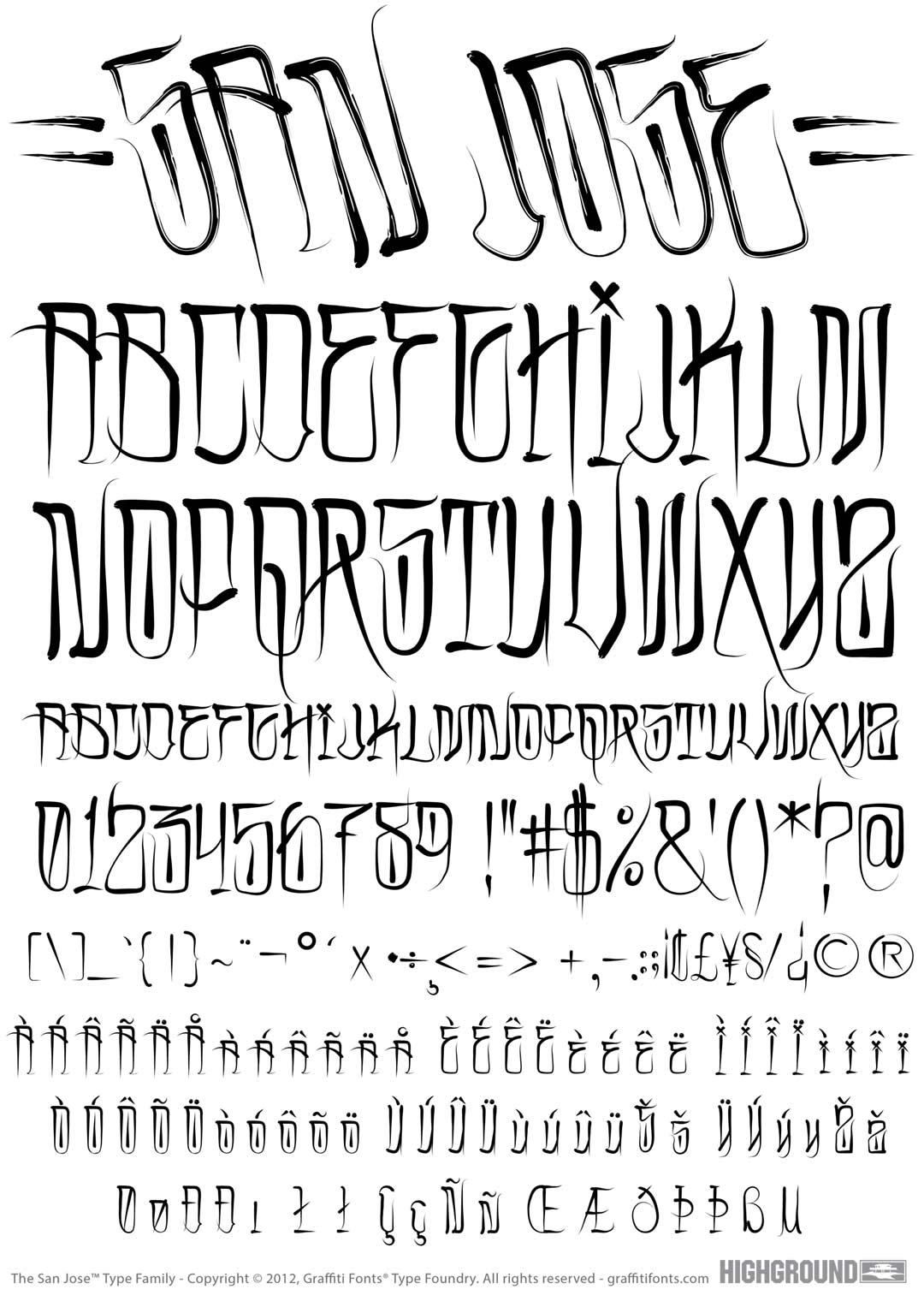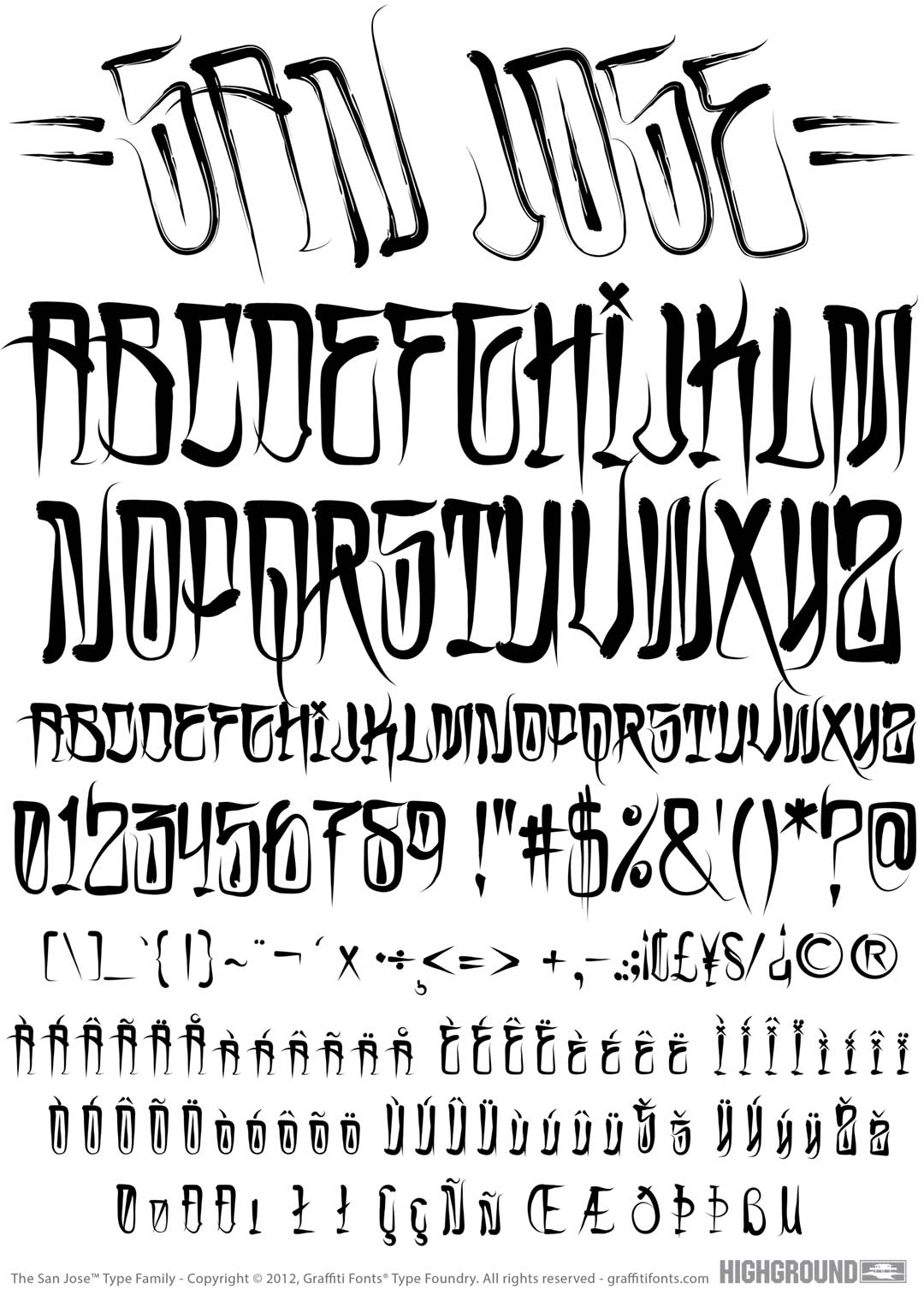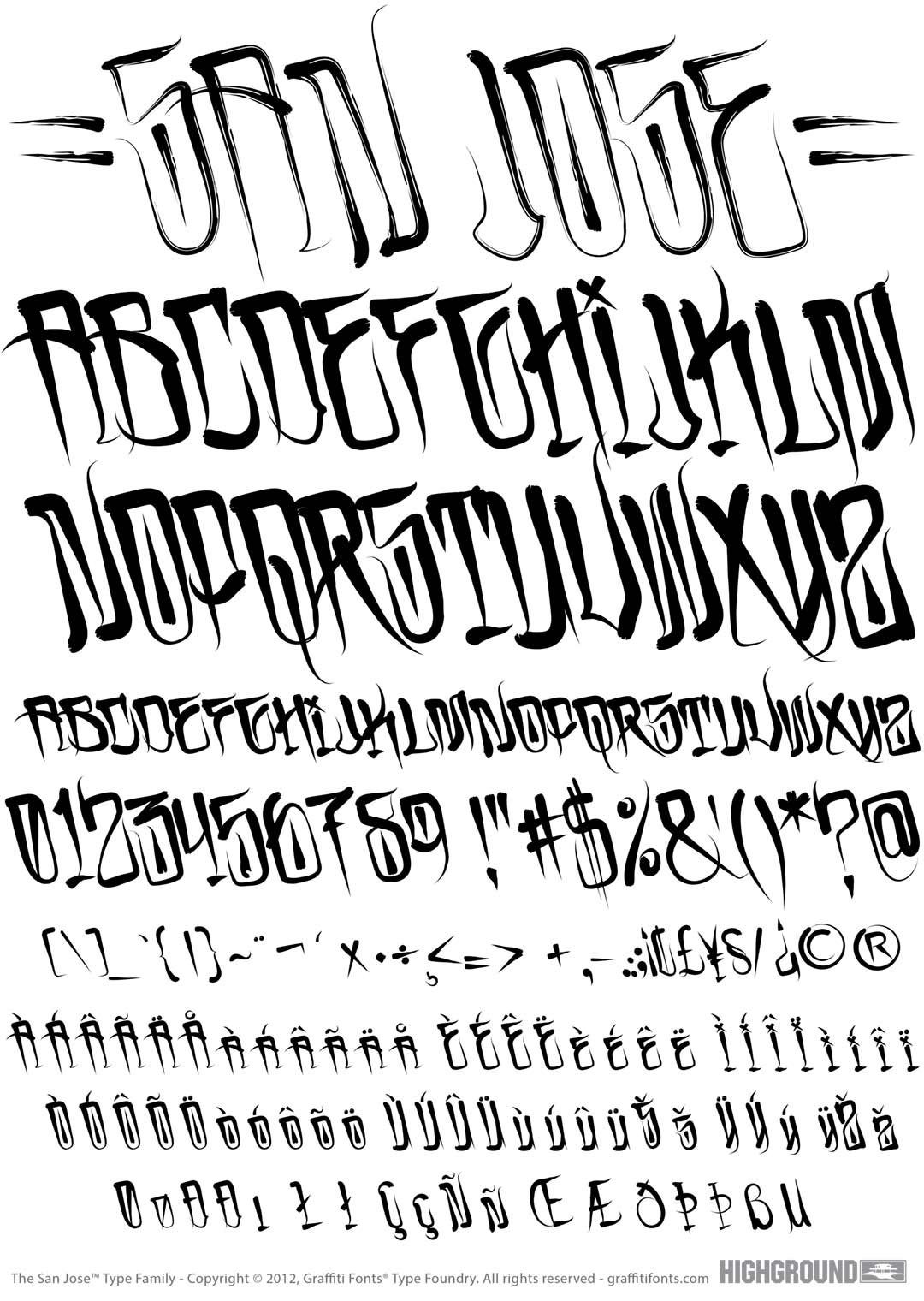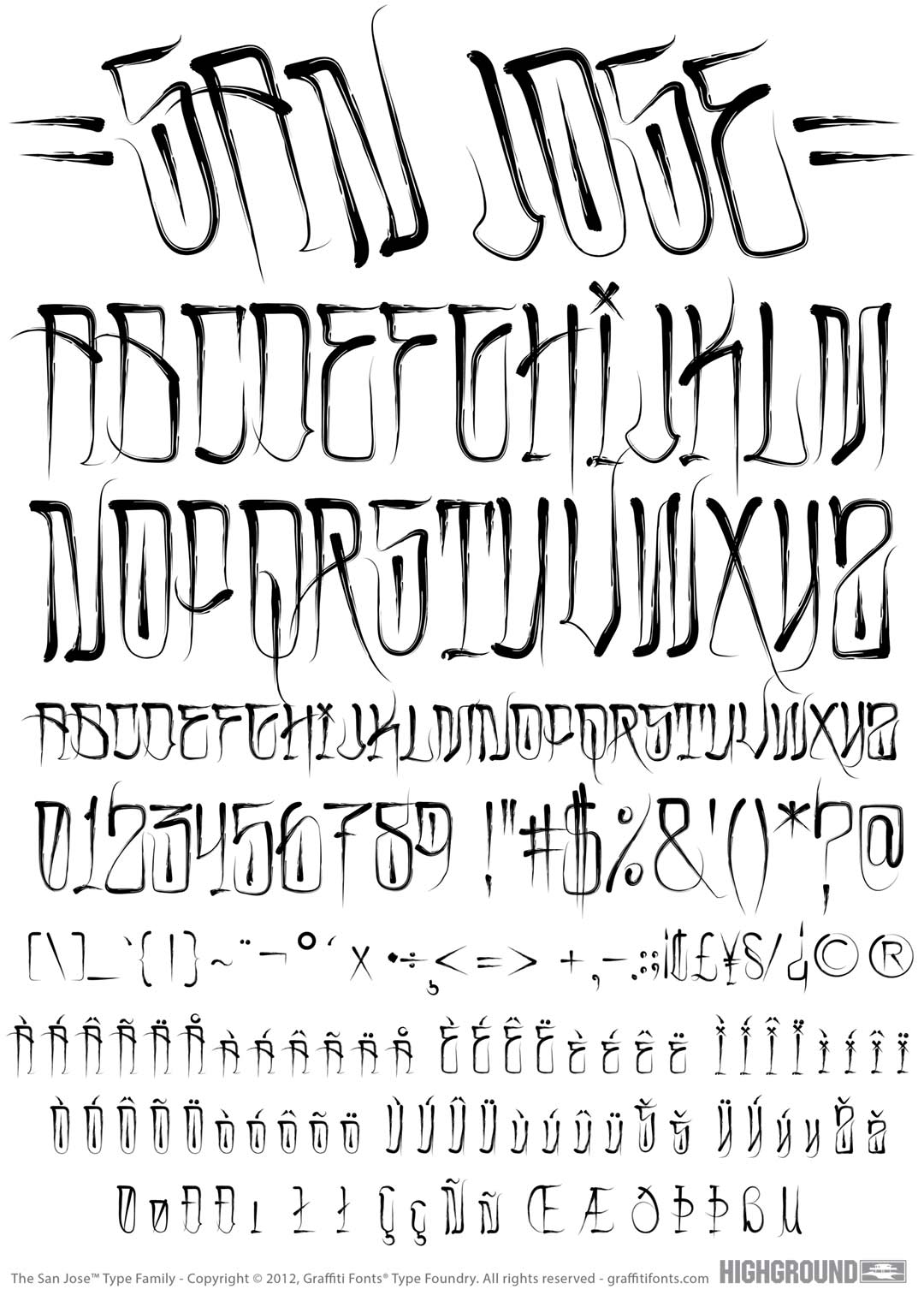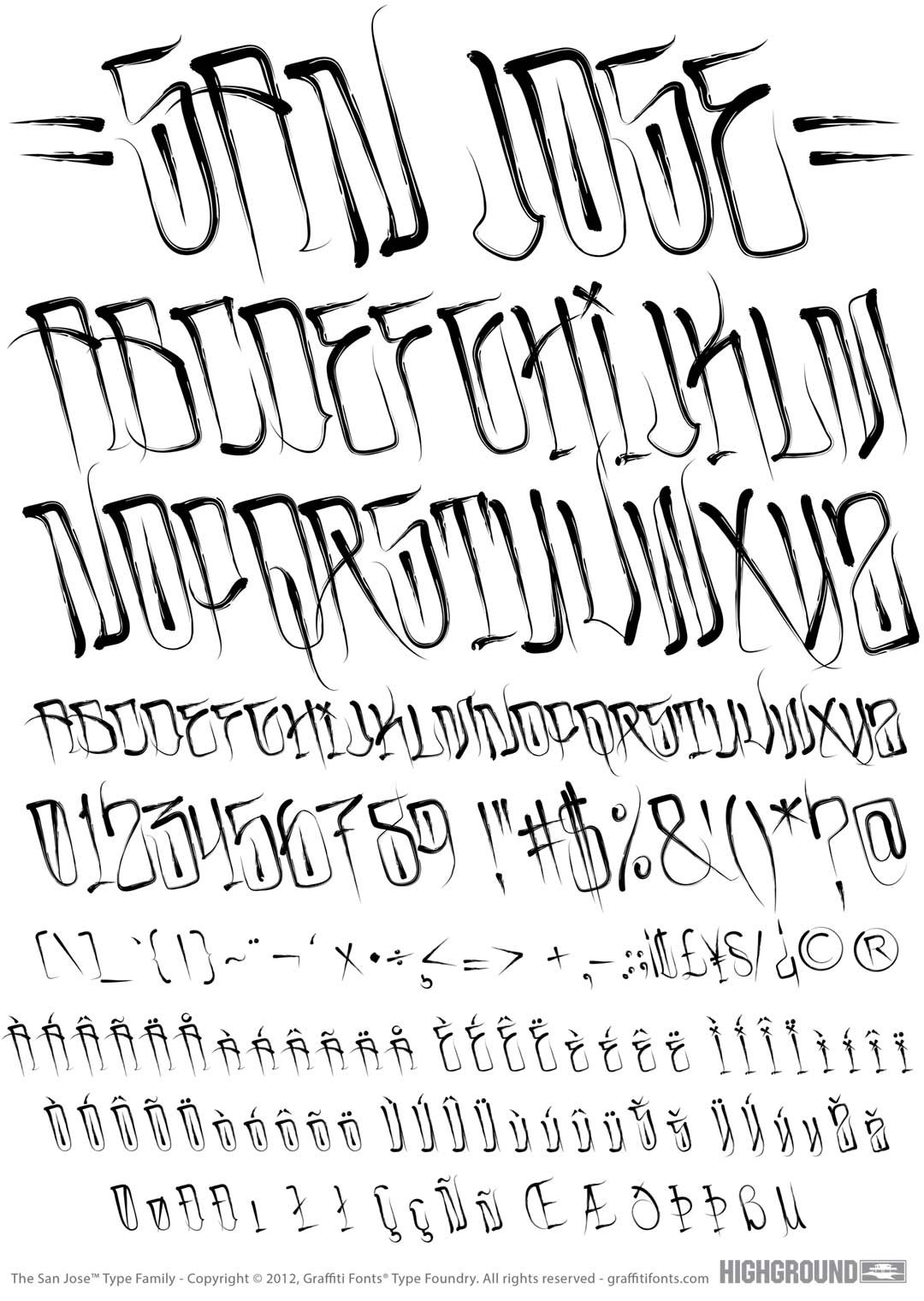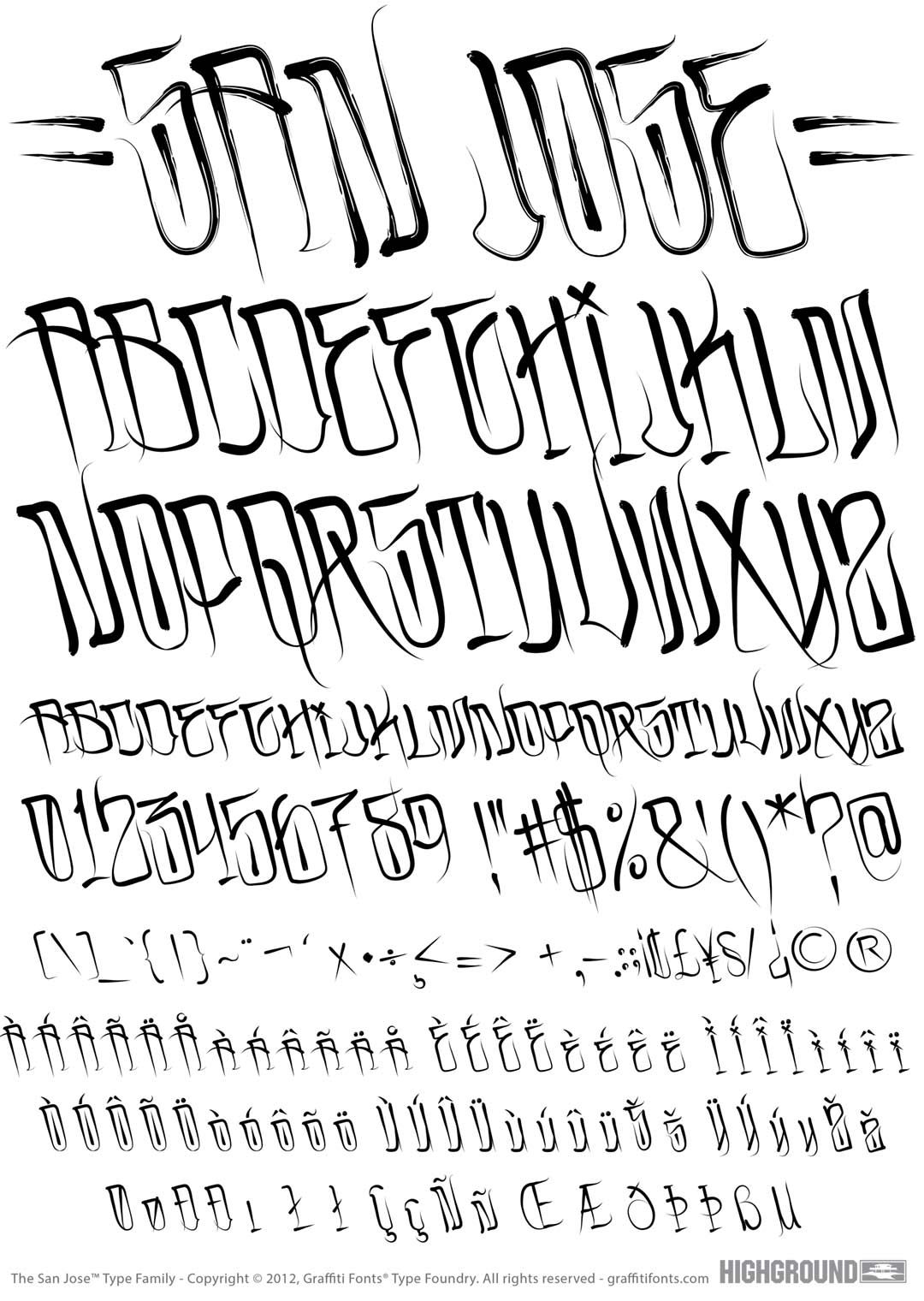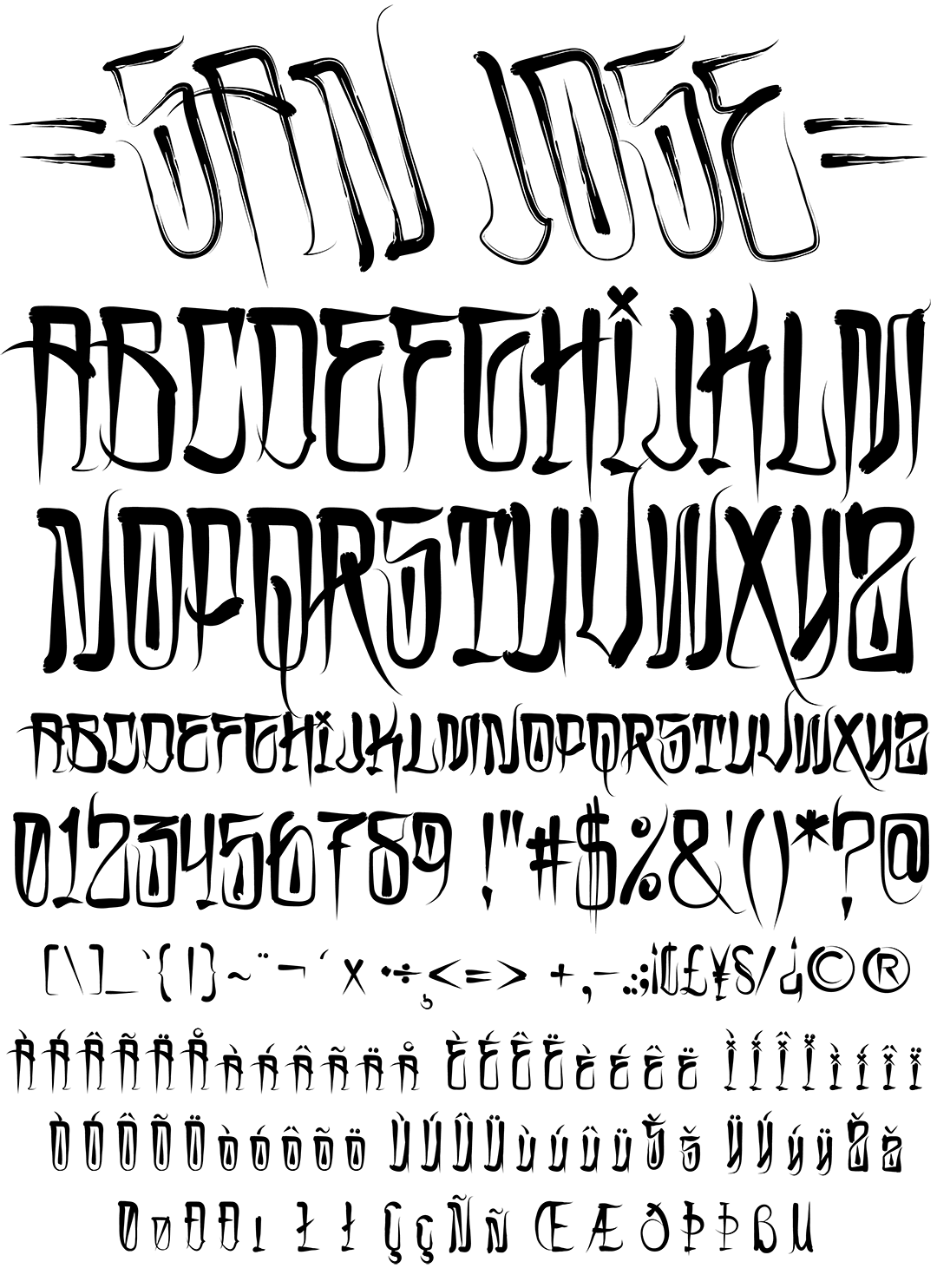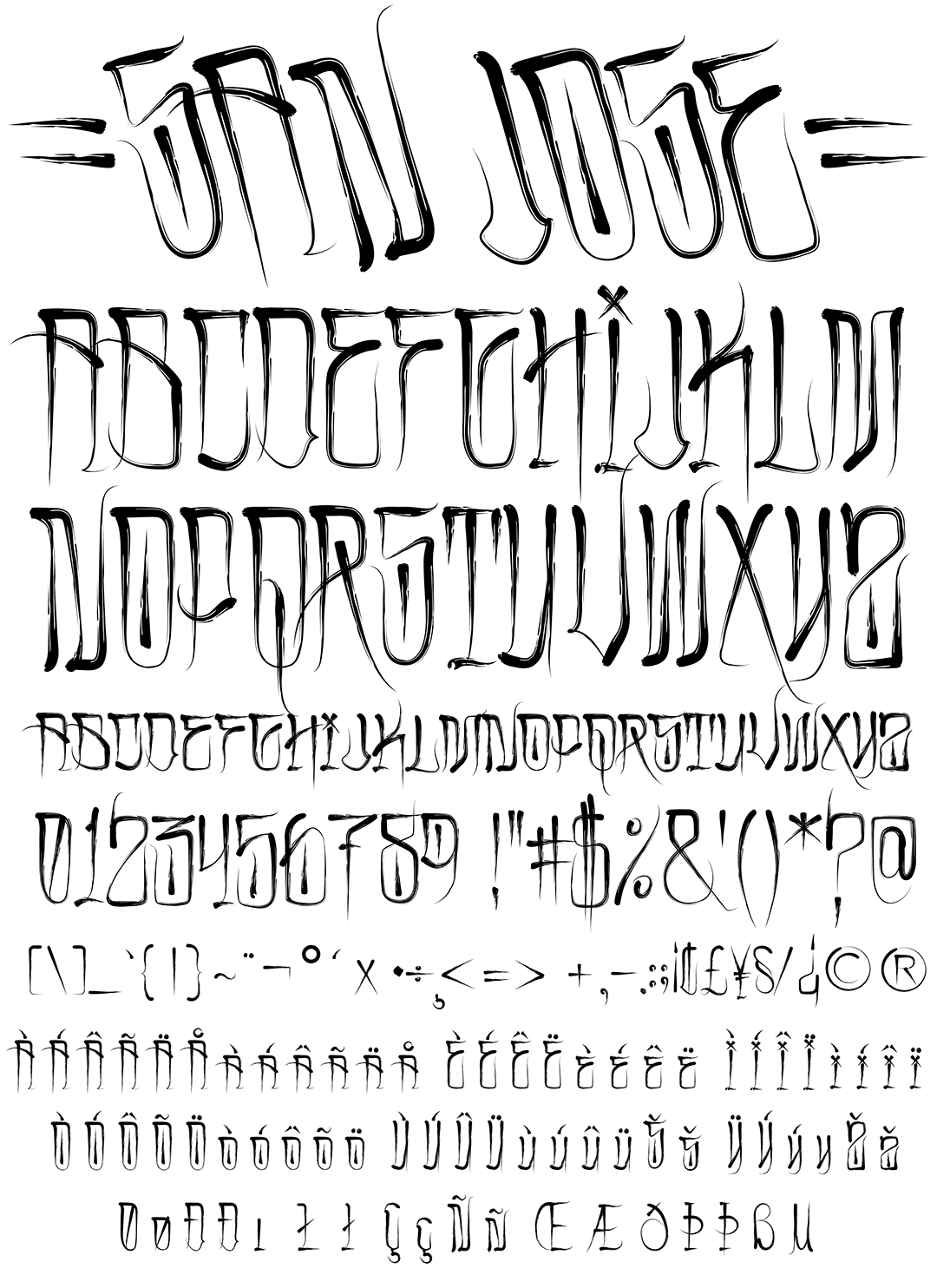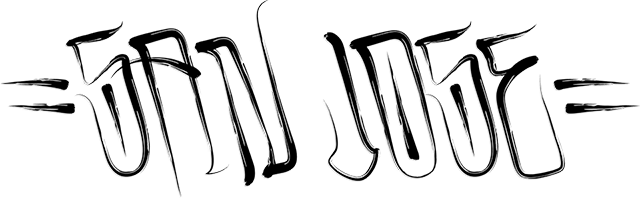
SanJose Font
SanJose Title Image
SanJose Graffiti Alphabet
SanJose Graffiti Font Family
The San Jose type family provides an array of six styles representing a simplified, bay area slant on traditional Chicano American street scripts. The styles in this set can be used in all caps for the most authentic appearance or in a more typographically traditional small caps format. This set also includes latin supplement support and a robust character set in six styles. Each of the 3 Stroke variants: Regular, Rough & Bold are also provided in a corresponding, leaned back, traditional slant style.
sanjose Graffiti Font Image #1
sanjose Graffiti Font Image #2
sanjose Graffiti Font Image #3
sanjose Graffiti Font Image #4